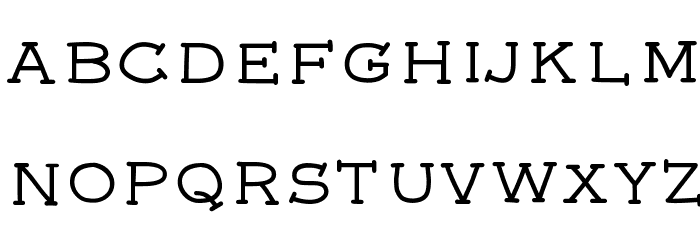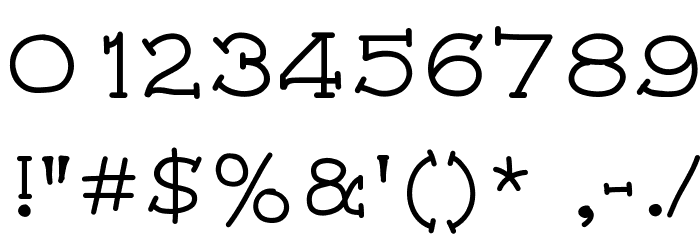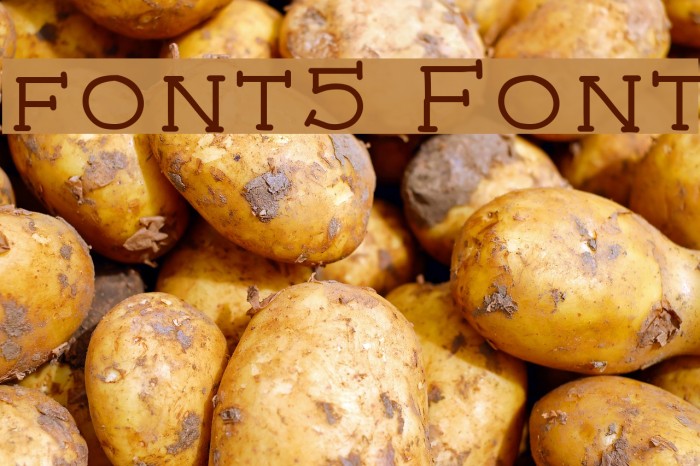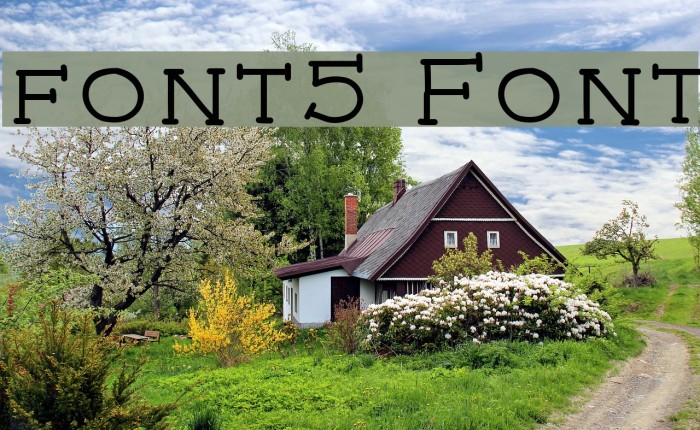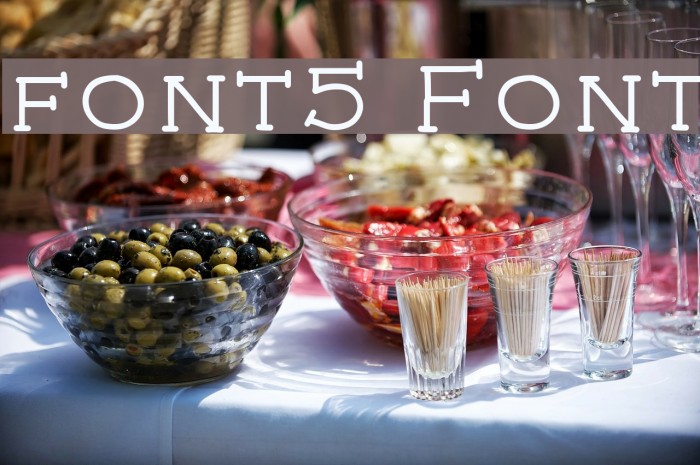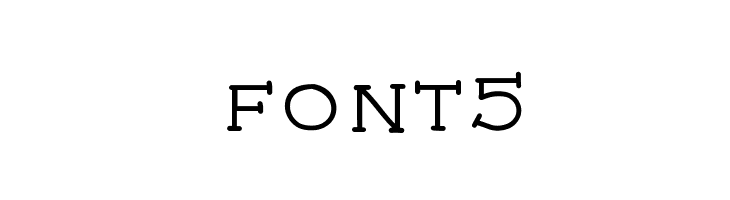
font5 Font
This font features a unique blend of classic and modern elements, characterized by its distinct serifs and slightly curved strokes. The uppercase letters exhibit a traditional serif style with a modern twist, while the lowercase letters maintain a consistent flow, enhancing readability. The numerals are bold and clear, making them suitable for various applications. Special characters are well-defined, adding to the font's versatility. Overall, the font's design is both elegant and functional, making it suitable for a wide range of design projects.
A serif font with a modern twist, featuring distinct serifs and slightly curved strokes.